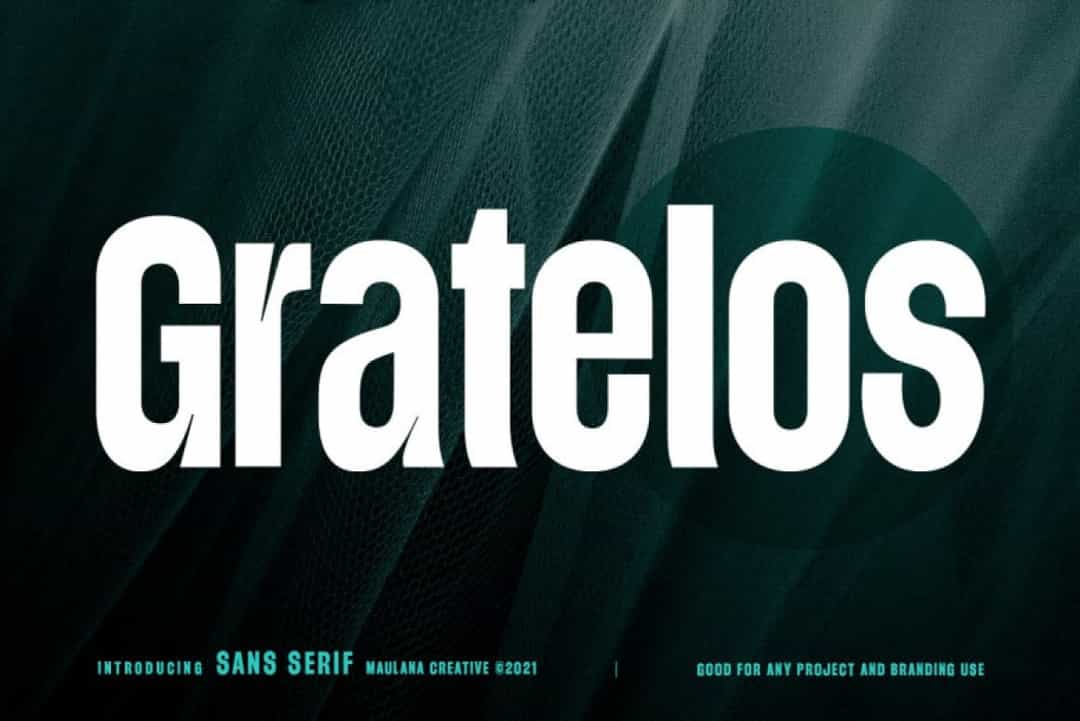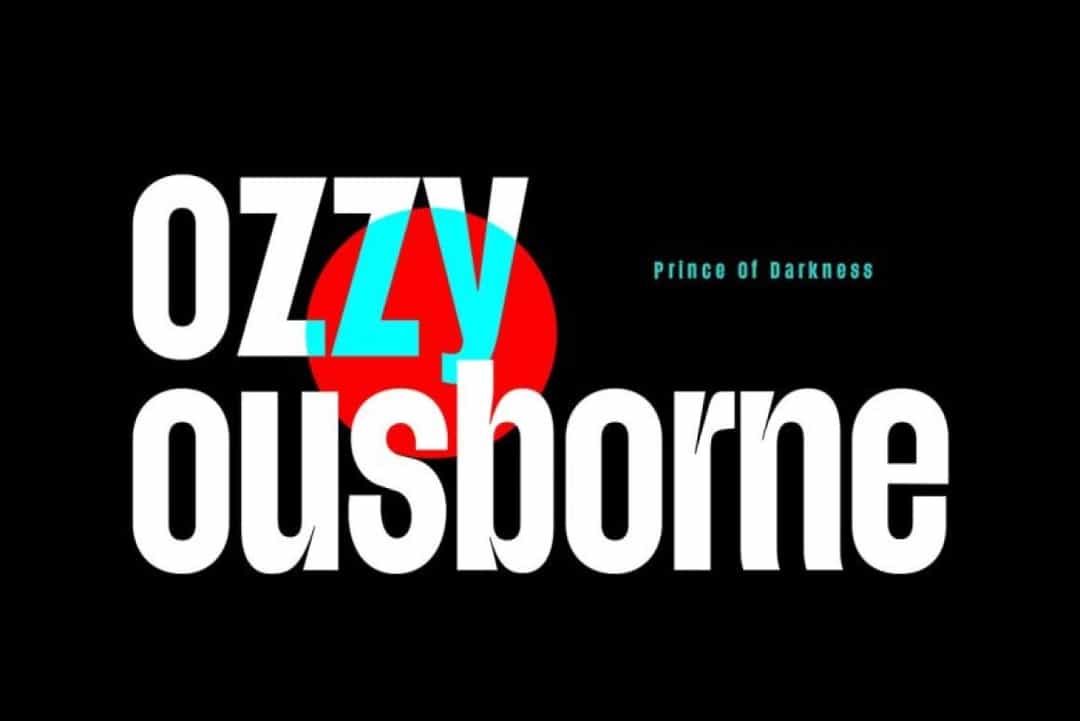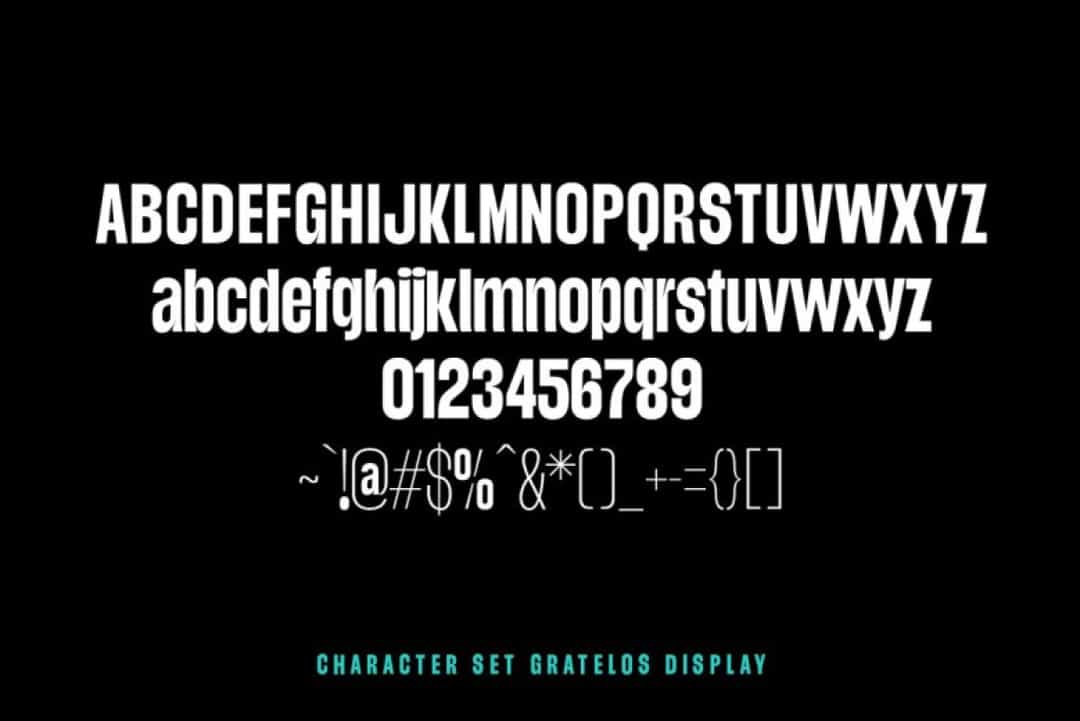
Gratelos font can be described as an innovative sans serif display font with condensed bold strokes and humorous characters, plus some ligatures to help enhance artistic work. Furthermore, this font supports multilingual support for over 100 languages! Gratelos font is ideal for logo design, social media posts and movie/book titles or lengthy text. Create stunning artwork using Gratelos font!